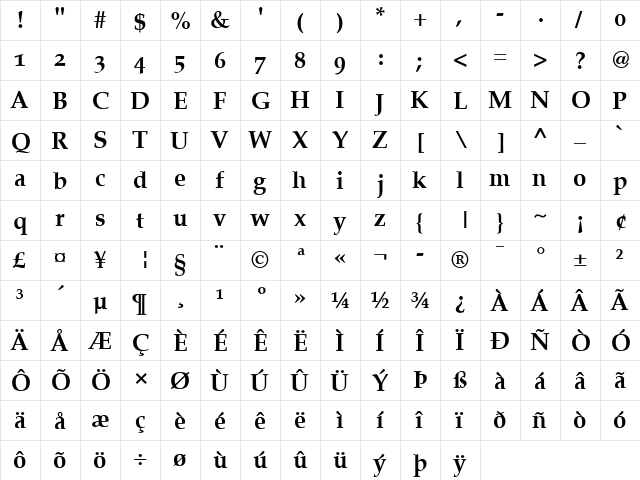
Palatino SC Bold
Design Context for Palatino SC Typeface
Palatino SC is a composed and adaptable typeface that performs quietly and consistently across a wide range of design contexts. Its bold stroke weight gives it real presence on the page.
Pro Tip: Pair Palatino SC with a font of contrasting weight or personality to build a more expressive typographic hierarchy.